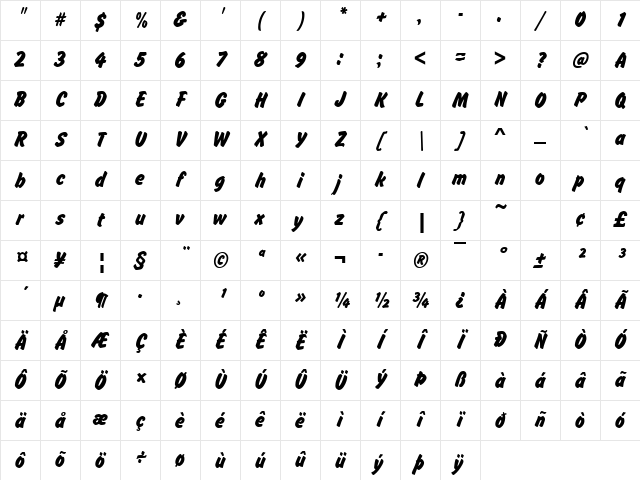
Complete Okay Becker Regular glyph index. Displaying only characters natively supported by Okay Becker Regular font.
Okay Becker is a composed and adaptable typeface that performs quietly and consistently across a wide range of design contexts.
Pro Tip: Use Okay Becker in both headline and body roles to test its range before committing to a single application.